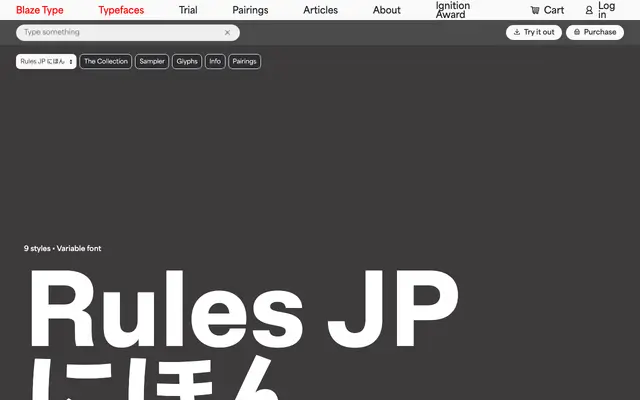
Rules JP
Blaze Type · Matthieu Salvaggio, Caio Kondo · 2026
A neo-grotesque extended from the Apoc family to cover Latin, Hiragana and Katakana, with support for both horizontal and vertical Japanese typesetting.
Rules JP adds Japanese kana to the Rules/Apoc family, covering Hiragana, Katakana and extended Latin across nine weights in a variable file. The design follows Swiss Modern grotesque conventions: near-zero counter contrast, closed terminals and squared stroke endings that give text layouts an even optical grey. Both horizontal and vertical writing modes are supported, making it viable for body text in print, web and app contexts as well as headlines and signage.
Described explicitly as a contemporary neo-grotesque rooted in Swiss Modern type tradition, with near-zero contrast in counter-forms and squared terminals consistent with that genre.